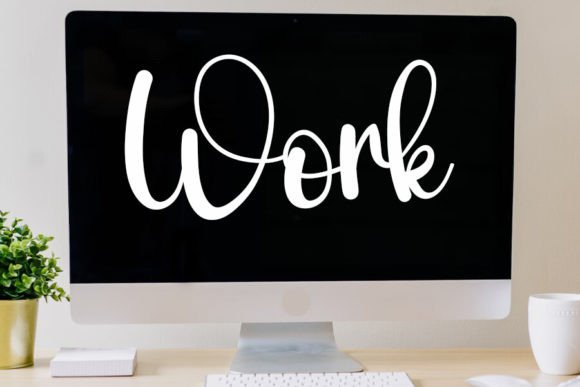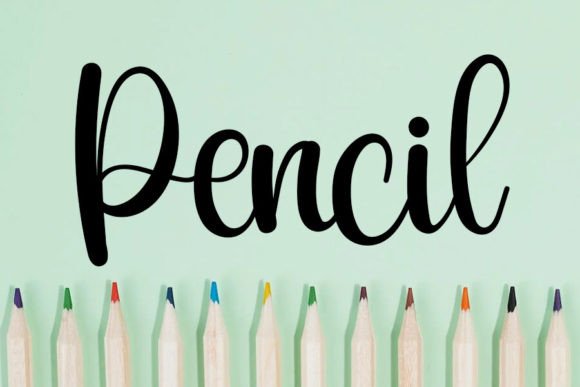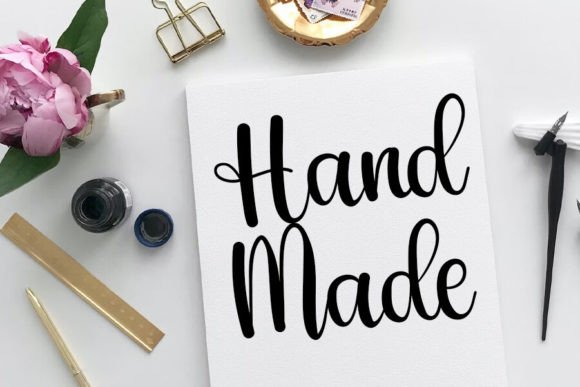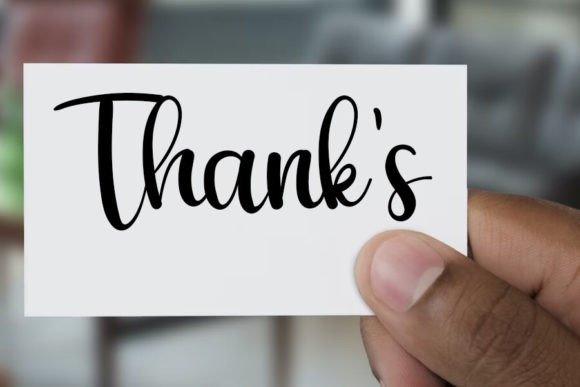
Billing Font: The Sweet and Friendly Handwritten Font for Your Creative Projects
Billing font is a beautiful, sweet, and friendly handwritten font that has captured the hearts of designers and crafters alike. Its natural and unique style makes it incredibly fitting for a wide range of designs, from creative projects to commercial endeavors. With Billing font, the only limit is your imagination!
What Makes Billing Font So Special?
Billing font boasts a distinctive, hand-crafted look that sets it apart from other fonts. Its unique style is characterized by:
- Natural and fluid strokes: Billing font features smooth, flowing strokes that give it a friendly and approachable feel.
- Unique letterforms: Each letter in the Billing font has been carefully crafted to create a distinctive and recognizable style.
- High legibility: Despite its unique style, Billing font remains highly legible, making it perfect for use in a variety of applications.
Perfect for a Wide Range of Designs
Billing font’s versatility makes it an excellent choice for a wide range of designs, including:
- Branding and logos: Create a lasting impression with a unique and memorable logo that showcases your brand’s personality.
- Invitations and stationery: Add a touch of elegance and sophistication to your invitations, cards, and stationery.
- Packaging and labels: Stand out on store shelves with eye-catching packaging and labels that feature the Billing font.
- Digital and print media: Use Billing font in your digital and print media, such as brochures, flyers, and social media graphics.
Tips for Using Billing Font Effectively
To get the most out of Billing font, follow these tips:
- Pair with complementary fonts: Combine Billing font with other fonts that complement its unique style, such as sans-serif fonts for a modern look.
- Experiment with colors and textures: Add depth and interest to your designs by experimenting with different colors and textures.
- Use it sparingly: Use Billing font sparingly to create emphasis and draw attention to specific elements in your design.
Why Designers and Crafters Love Billing Font
Billing font has become a favorite among designers and crafters due to its:
- Unique and distinctive style: Billing font’s unique style sets it apart from other fonts and allows designers to create truly original designs.
- Ease of use: Billing font is easy to use and works seamlessly with a variety of design software.
- Emotional connection: Billing font’s friendly and approachable style creates an emotional connection with audiences, making it perfect for designs that require a personal touch.
In conclusion, Billing font is a sweet and friendly handwritten font that offers a world of creative possibilities. Its unique style, versatility, and ease of use make it an excellent choice for designers and crafters looking to add a personal touch to their designs. Whether you’re working on a branding project, creating invitations, or designing packaging, Billing font is sure to inspire your creativity and help you achieve your design goals.